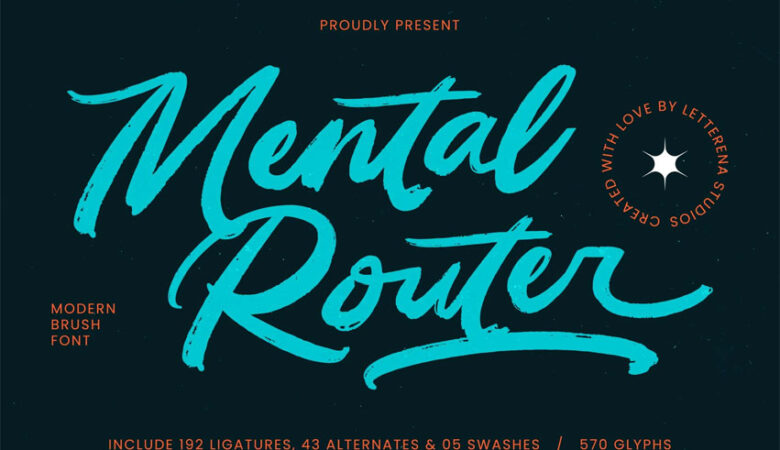
Retro Brush Font is a unique design that captures the essence of old charm with its dry brush stroke style. This unusual design technique gives the typeface a lovely feel and fluidity, allowing it to stand out in any design project. This font’s letters have a real, hand-painted feel to them, which adds warmth and personality that computer typefaces typically lack.
One of the most notable features of this retro brush font is its multitude of alternatives and ligatures. These new glyphs improve the handwritten appearance, allowing for more creative and personalized type. Designers can produce a more natural and organic look by integrating alternatives and ligatures, which resemble the intricacies of actual handwriting.
The retro brush handwritten font is ideal for use in header text because of its bold and textured appearance, which can capture quick attention. It is also a good choice for poster designs, since it adds a dynamic and appealing visual aspect that successfully conveys messages. Logos benefit immensely from this font’s distinct style, which adds a personalized touch that can help firms stand out in a competitive market.
In product packaging, the antique brush type lends a handcrafted vibe, making items appear more artisanal. It looks great on clothing, giving t-shirts, tote bags, and mugs a unique and stylish appearance.
Furthermore, the retro brush handwritten font is ideal for Poster, greeting cards, and social media graphics, where its personalized touch can create a strong emotional connection. Whether used in digital or print media, this font brings a touch of retro elegance and artistic charm.